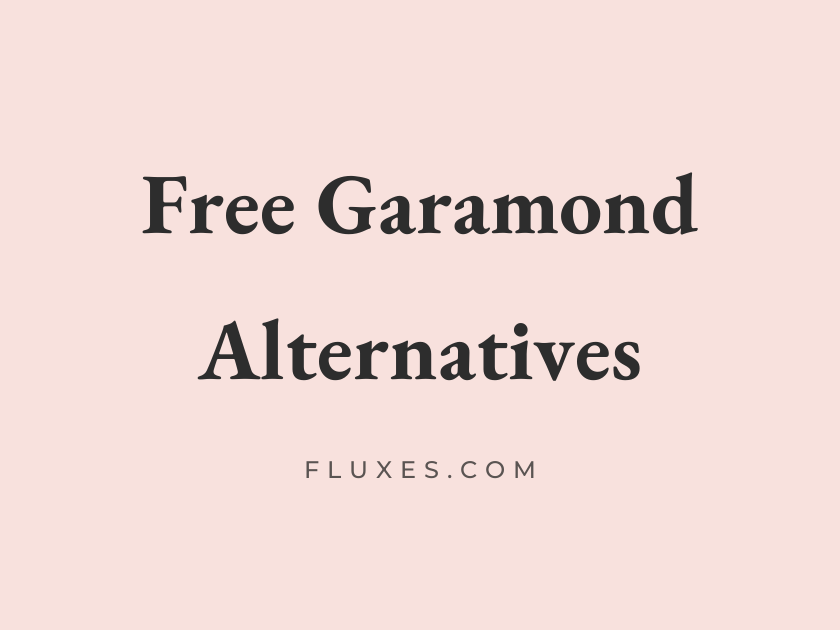
15 Best Free Fonts Alternatives to Garamond
Garamond has survived five centuries of typesetting because it does something rare: it reads as scholarly and warm at the same time. That balance of old-style calligraphic roots, moderate contrast, and generous lowercase proportions is exactly what designers reach for when a project needs to feel literary, established, or quietly confident rather than loud. The trouble is that the original metal-type Garamond revivals are often locked behind licensing fees, which sends most of us looking for free alternatives that capture the same character without the cost.
Google Fonts has quietly built up a strong bench of old-style serifs, humanist book faces, and Renaissance-inspired revivals that either descend directly from Garamond’s punches or borrow its spirit for contemporary use. Whether you need something for long-form editorial text, a wedding invitation, or a publishing project that has to look credible on screen, there are free options here worth typesetting with.
1. EB Garamond
Set in the tradition of Claude Garamont's original punches
This is the obvious starting point, and for good reason: EB Garamond is a direct, careful digital revival of the sixteenth-century originals, built from the same source material that inspired the commercial Adobe and Monotype versions. It carries the same warm, slightly irregular curves and moderate stroke contrast that made Garamond a benchmark for book typography.
Use it anywhere you would have reached for the paid original, from novel interiors to academic papers, and it will hold up at both text and display sizes.
2. Cormorant Garamond
Elegant letters for invitations and fine print
Cormorant Garamond takes the historical bones of Garamond and stretches them taller and thinner, trading some of the workhorse readability for refinement. It shines in headlines, pull quotes, and anything meant to feel jewelry-like rather than functional.
Pair it with EB Garamond or a plain sans body text for contrast; on its own at small sizes it can feel a touch too delicate.
3. Cormorant
A display serif with old-style grace and high contrast
Cormorant is the more dramatic sibling in the same type family, with sharper contrast between thick and thin strokes. It suits wedding stationery, poetry chapbooks, and fashion branding where a whisper of period elegance is the whole point, though it is not built for dense paragraphs of body copy.
4. Crimson Pro
Readable text for long-form articles and books
Crimson Pro was designed specifically to compete with the classic book faces publishers rely on, and its old-style figures, restrained curves, and even color on the page make it a genuinely comfortable reading font. It sits closer to Garamond than to the heavier Times-style serifs, which makes it a smart substitute wherever a manuscript or ebook needs a literary but unfussy typeface.
5. Spectral
Designed for screens without losing warmth
Built originally for WordPress itself, Spectral was engineered to be legible on low-resolution screens while still carrying an editorial, slightly old-fashioned character. It has more even weight distribution than true Garamond revivals, so it holds up better in small sizes on a blog or news site.
6. Vollkorn
A sturdy German serif built for body text
Vollkorn was one of the earliest text-focused fonts made for Google Fonts, and it still reads as unpretentious and dependable rather than decorative. It leans a little heavier and rounder than Garamond proper, which makes it a good pick when you want that old-book feeling without any fragility at small sizes.
7. Alegreya
Humanist letters inspired by literary typefaces
Alegreya was designed for extended reading, with a rhythm and calligraphic flow that recall old-style serifs like Garamond while feeling distinctly contemporary. Its italics are unusually expressive, almost handwritten, which makes it worth considering for poetry, essays, or any layout where the italic will get real use rather than just sit in a footnote.
8. Cardo
A scholarly serif rooted in classical typefaces
Cardo was built for classicists and scholars who needed a free serif with full support for historical and diacritic characters, and that academic pedigree shows in its restrained, text-first design. It is a strong choice for dissertations, critical editions, or any project that wants the gravity of an old-style serif without any display flourish.
9. Source Serif 4
Clean, professional serif text for publications
Where Garamond feels handmade, Source Serif 4 feels engineered, but it shares the same moderate contrast and comfortable text proportions. It is a dependable substitute when a brand needs something that reads as credible and literate but has to survive being set in a corporate template alongside a sans-serif interface.
10. Lora
Contemporary serif with roots in calligraphy
Lora softens its old-style structure with brushed, calligraphic details, giving it a friendlier and slightly more modern feel than a strict Garamond revival. It has become a default choice for blogs and long-form web content precisely because it renders cleanly at body-text sizes across devices.
11. Frank Ruhl Libre
Bold character for headlines and editorial design
Frank Ruhl Libre started life as a Hebrew typeface and was later extended into a full Latin family with real editorial weight. Its darker, more angular texture makes it better suited to headlines and short passages than dense paragraphs, but it brings a distinctive, less common alternative to the usual Garamond lookalikes.
• Styles: 7 weights (Light to Black)
12. PT Serif
Balanced serif letters for print and screen
PT Serif was commissioned as part of a public type program in Russia and designed to work equally well in print and on screen, which gives it a practical, no-nonsense old-style character. It is not trying to imitate Garamond’s calligraphic flourish so much as its balance and legibility, making it a safe pick for reports and documentation.
13. Domine
A sturdy serif made for confident headings
Domine carries more weight and a firmer vertical stress than Garamond, so it reads as more assertive and modern, closer to a book headline face than a body text face. Reach for it when a project needs the credibility of a serif but also needs to hold its own next to bold sans-serif navigation.
14. Old Standard TT
A classic revival for scholarly typesetting
Old Standard TT was modeled on turn-of-the-century European serifs used in academic printing, giving it a slightly more austere, ink-heavy texture than Garamond’s lighter touch. It is at its best in dense, small-size settings like footnotes, bibliographies, and journal layouts where authority matters more than warmth.
15. IM Fell English
Hand-set letters echoing early printed books
IM Fell English
IM Fell English is a faithful digitization of actual seventeenth-century type specimens, irregularities and all, so it carries a texture that feels genuinely printed rather than drawn on a screen. It is not a font for body copy on a modern website, but for book covers, historical projects, or anything wanting the specific smell of old paper, nothing else on this list gets closer.
How to Choose and Pair a Garamond Alternative
Start with the job the type has to do. A novel or long article calls for a text-first face like EB Garamond, Crimson Pro, or Lora, while invitations and branding can afford the delicacy of Cormorant or Cormorant Garamond.
Check readability at your actual point size before committing. Some of the more delicate revivals look beautiful in a mockup but turn faint or muddy once set at 14px on a screen.
For pairing, an old-style serif rarely needs another serif alongside it. A clean humanist sans-serif in the interface elements will let the Garamond-style face carry all the warmth on its own.
If you need both a body font and a display font from one family, EB Garamond and Cormorant Garamond share enough DNA to sit comfortably together on the same page.
None of these will be a pixel-perfect clone of a licensed Garamond, but each one captures a genuine piece of what makes the original endure: legible old-style curves, restrained contrast, and a sense that the text has some history behind it. Downloaded from Google Fonts and set with care, any of them can carry a project that needs Garamond’s character without the licensing cost.